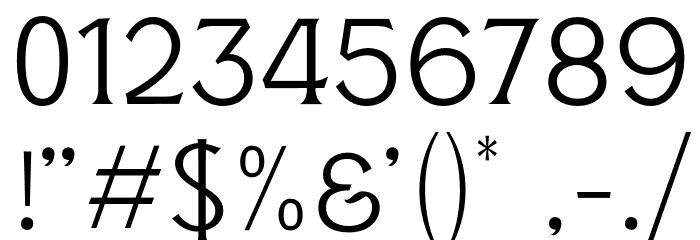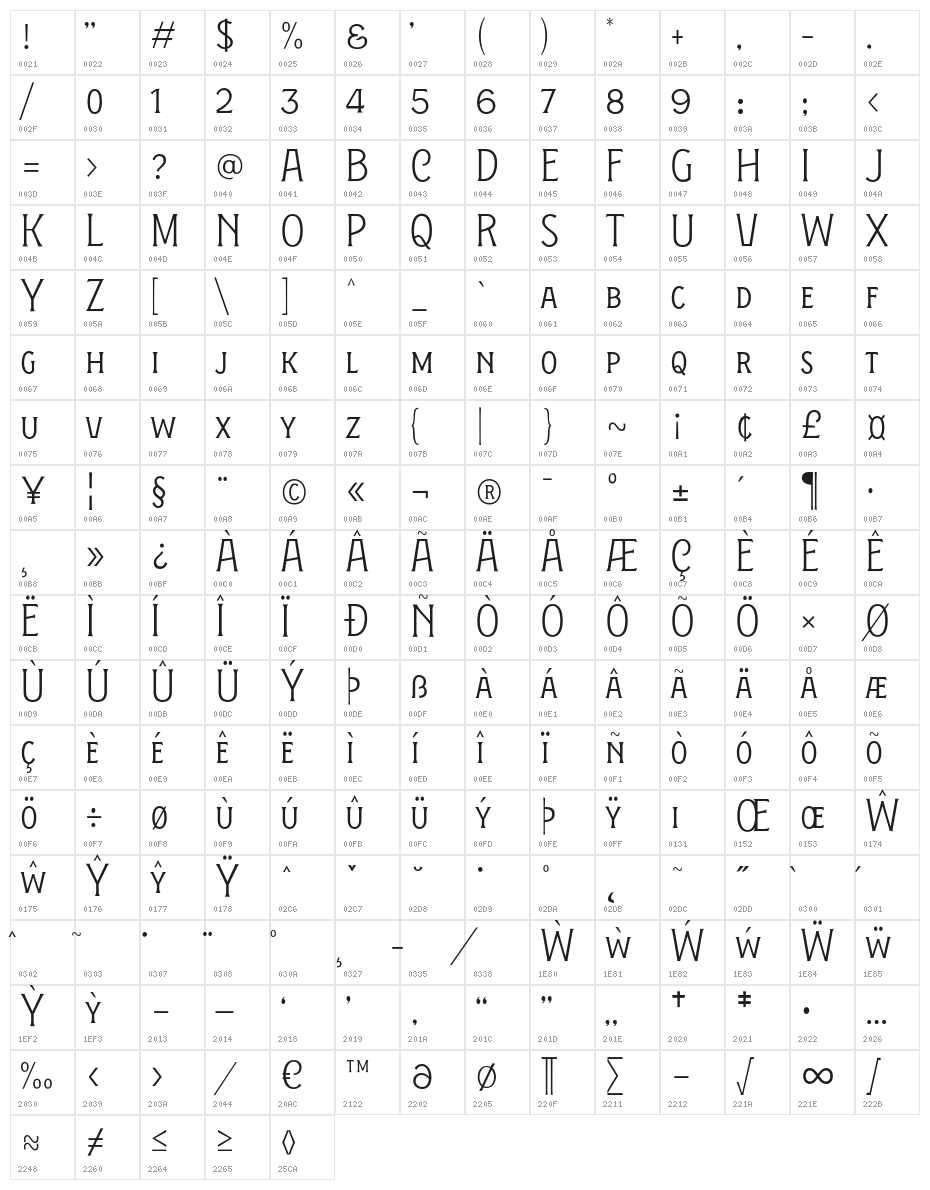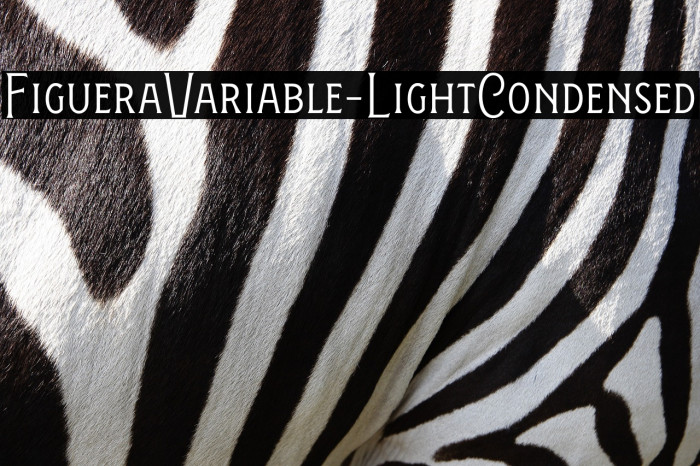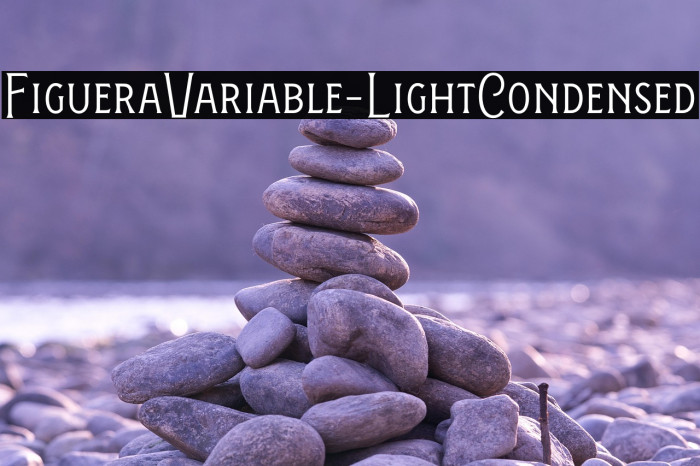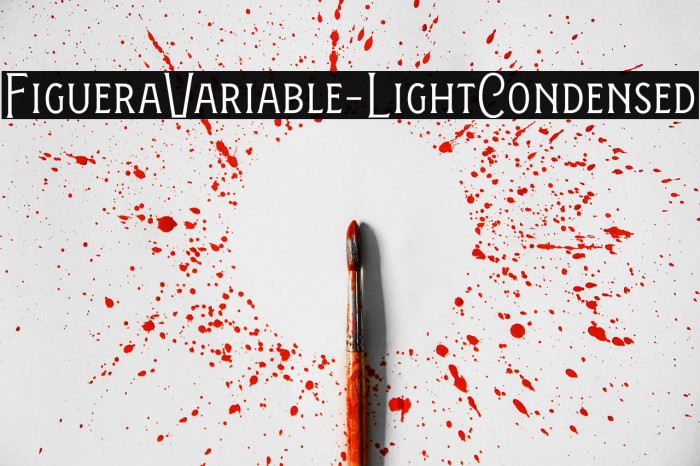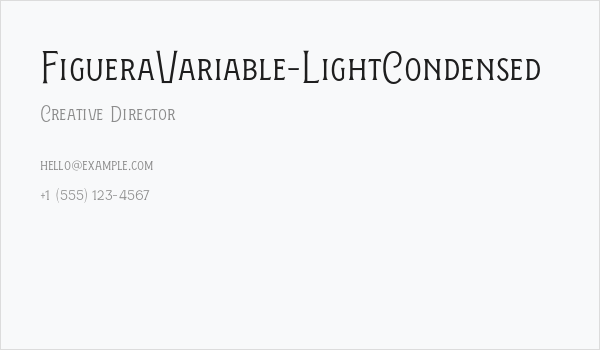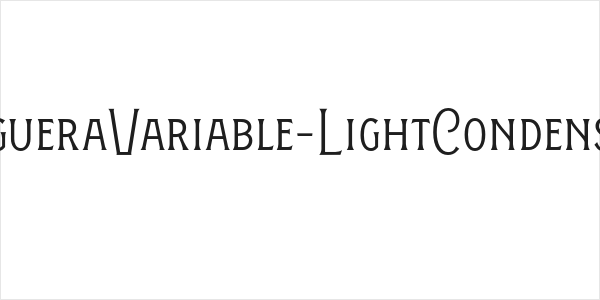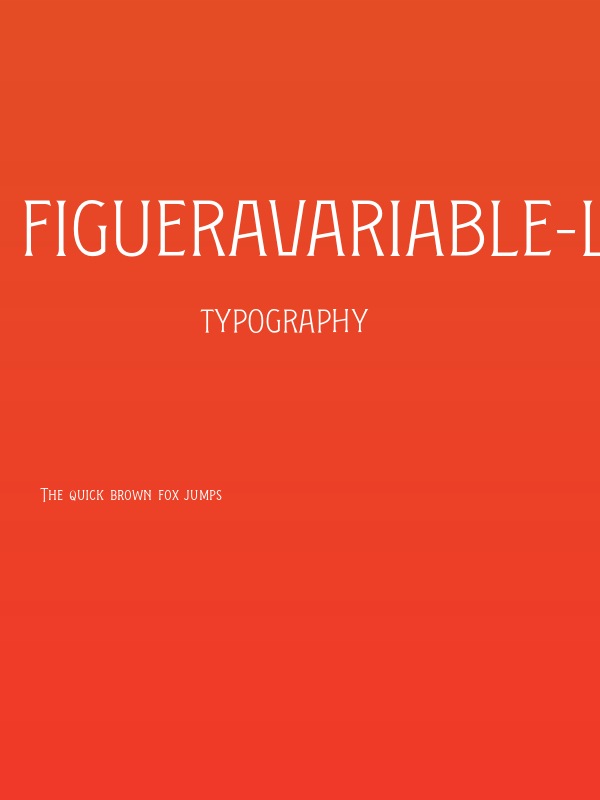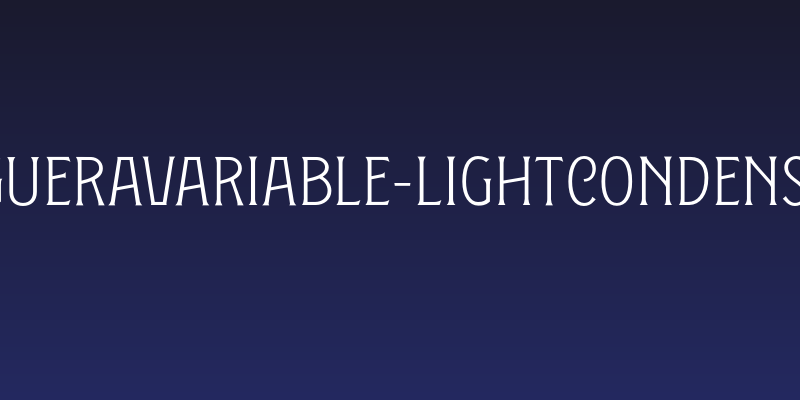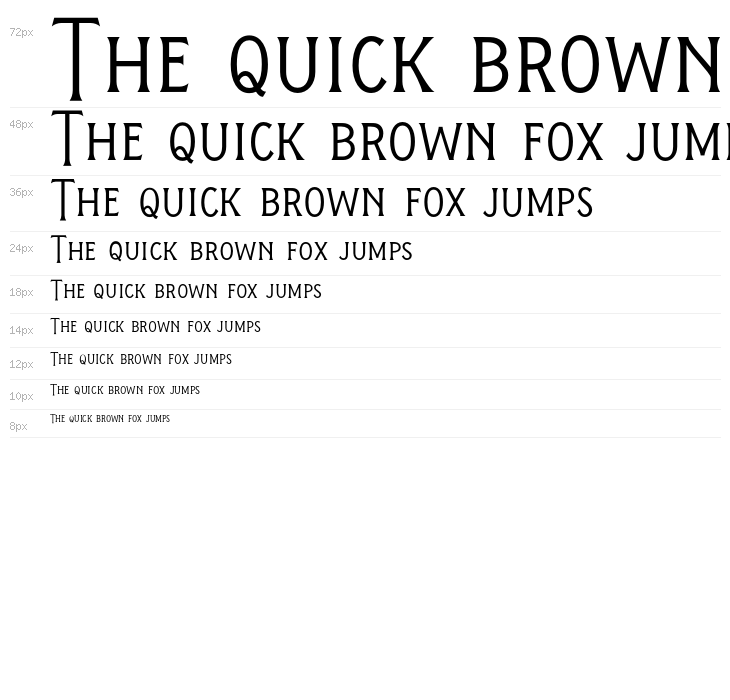
FigueraVariable-LightCondensed Font
FigueraVariable-LightCondensed Description
This font features a unique blend of modern and vintage aesthetics, characterized by its light weight and condensed width. The letters exhibit a subtle elegance with slightly curved strokes and a consistent thinness throughout, providing a refined and sophisticated appearance. The uppercase and lowercase letters maintain a harmonious balance, while the numerals are clear and easily readable. Special characters are thoughtfully designed, complementing the overall style. The font's condensed nature allows for efficient use of space, making it ideal for projects where space is a premium.